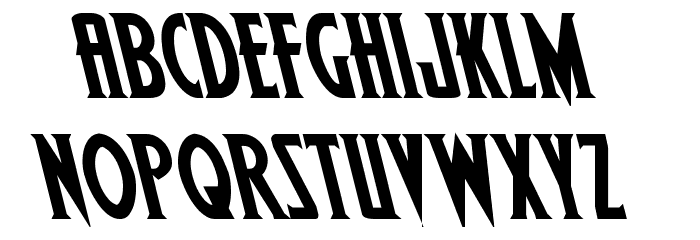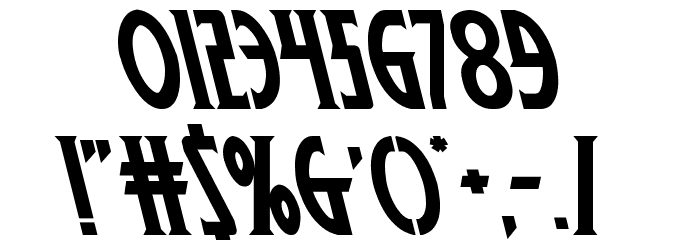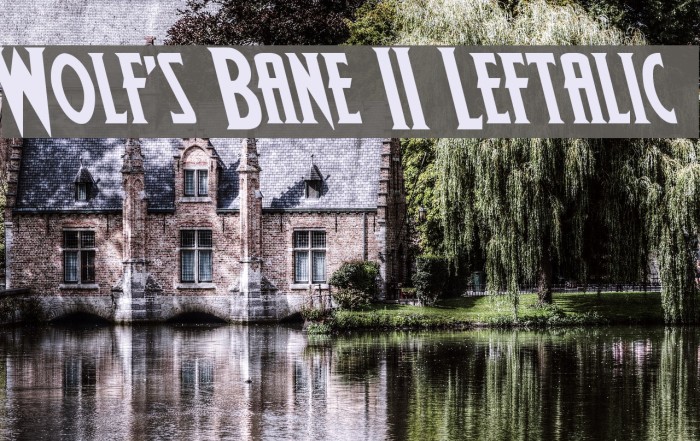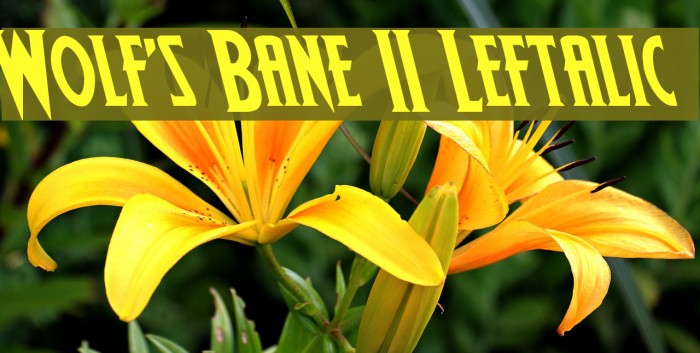
Wolf's Bane II Leftalic Font
This font features a bold and dynamic design with sharp, angular edges and a distinct slant to the left, giving it a sense of motion and energy. The uppercase and lowercase letters maintain a consistent style, with exaggerated serifs and a slightly condensed form. The numbers and special characters follow the same aesthetic, ensuring uniformity across all glyphs. The overall appearance is striking and attention-grabbing, making it suitable for impactful design projects.
A bold, left-leaning font with sharp, angular edges and a dynamic style.
- Proposed Projects: Ideal for posters, logos, and branding materials that require a bold and energetic look.
- Character Spacing: Tight